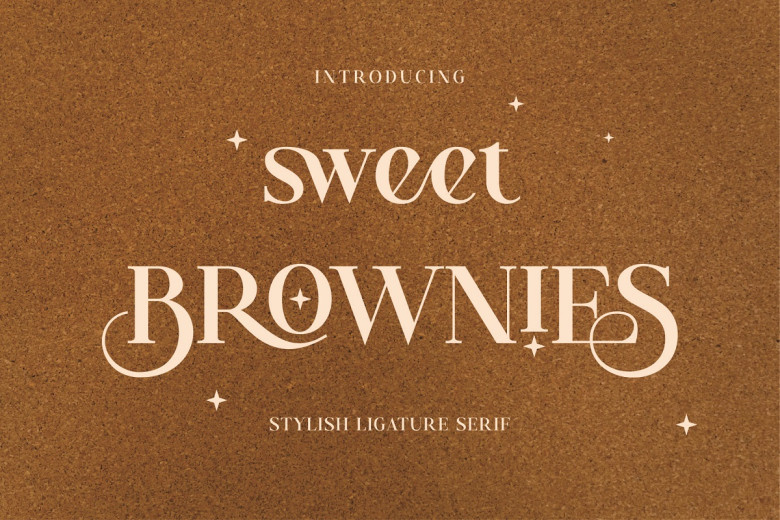
Sweet Brownies Font
Sweet Brownies is an elegant serif typeface inspired by a minimalist logo, perfect for use when designing templates, brochures and videos as well as advertising branding logos, invitations layout design elegant craft beauty design among many other projects.
Sweet Brownies Serif Font